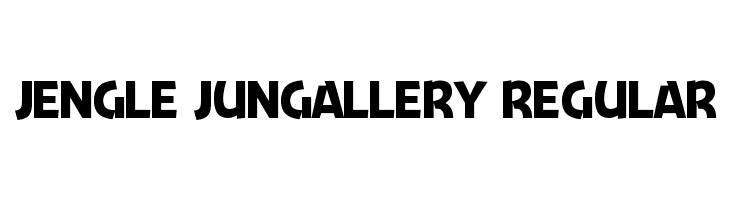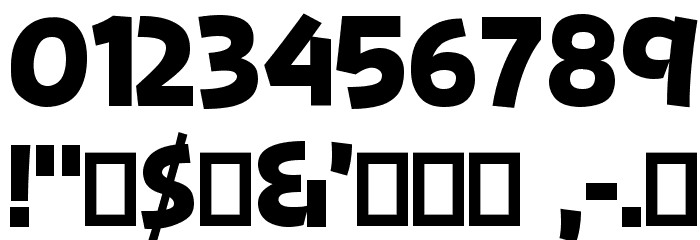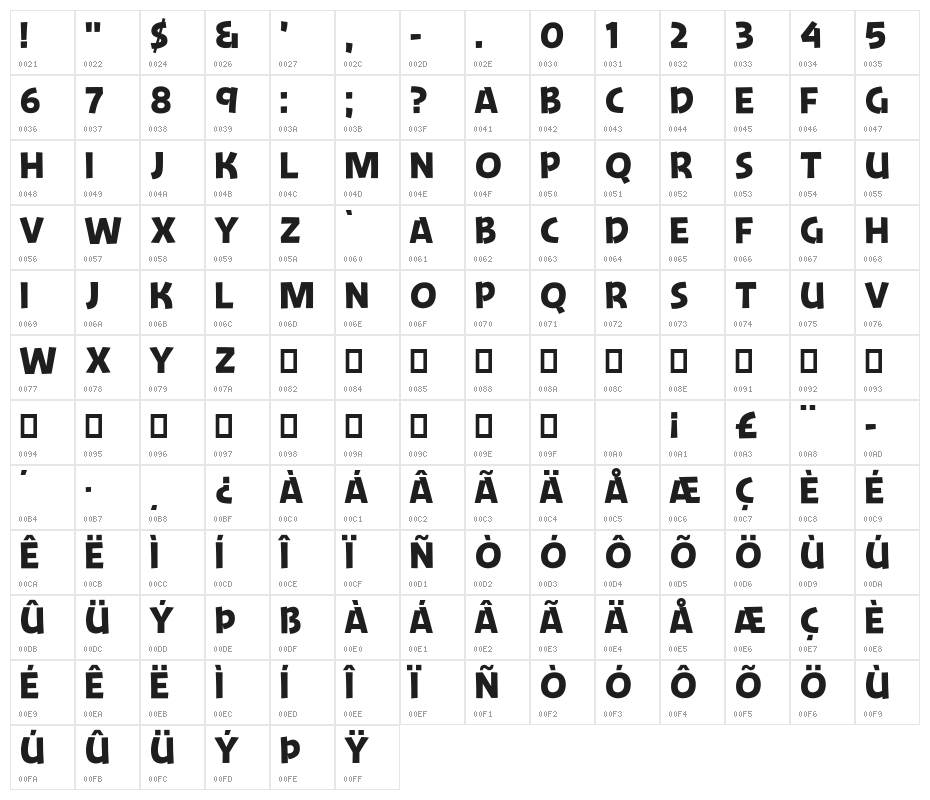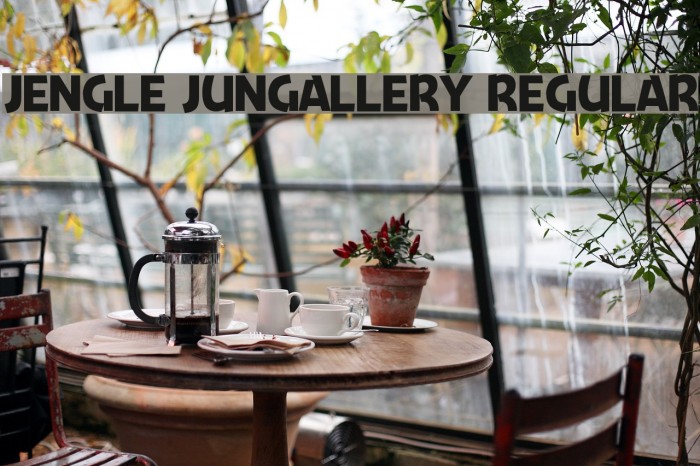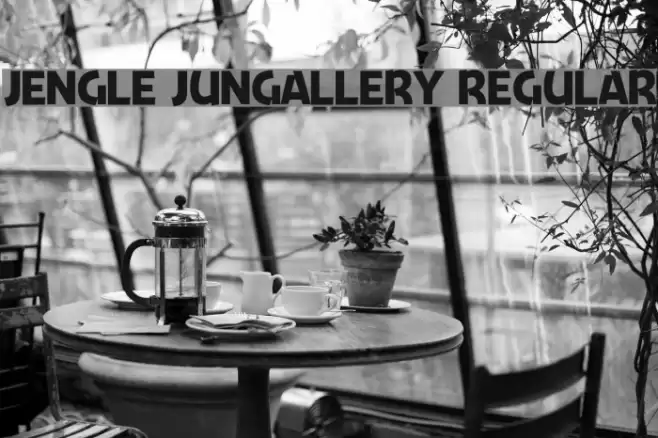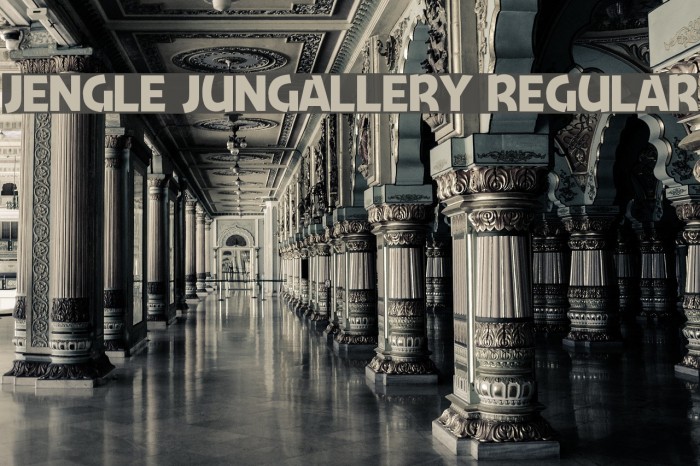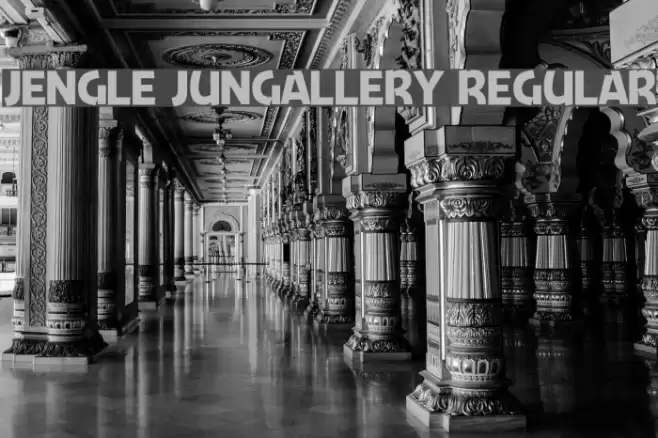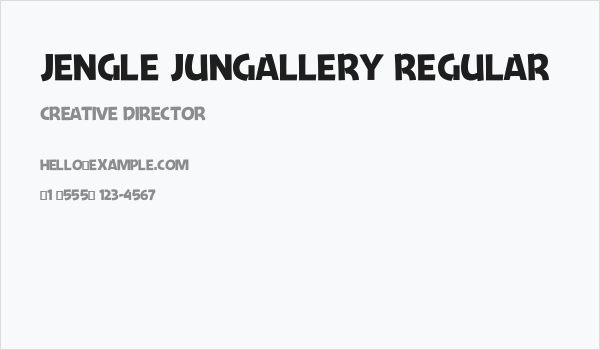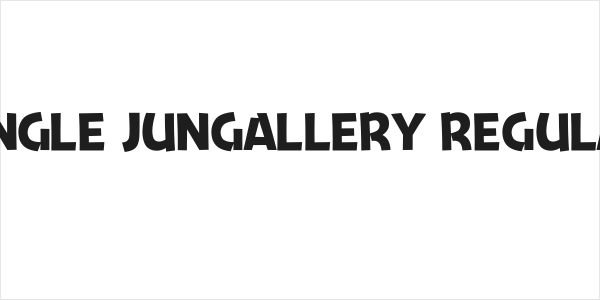
Jengle Jungallery Regular Font
Jengle Jungallery Regular Description
This font features bold, playful characters with a unique, whimsical style. The letters are thick and rounded, giving them a friendly and approachable appearance. The strokes are consistent in width, contributing to a cohesive and uniform look. The characters have a slightly condensed form, which adds to their quirky charm. This font is highly legible and stands out due to its distinctive design, making it ideal for creative and fun projects. The numbers and special characters maintain the same playful aesthetic, ensuring a harmonious look across all text elements.
| Proposed Projects | Ideal for children's books, playful branding, posters, and creative designs. |